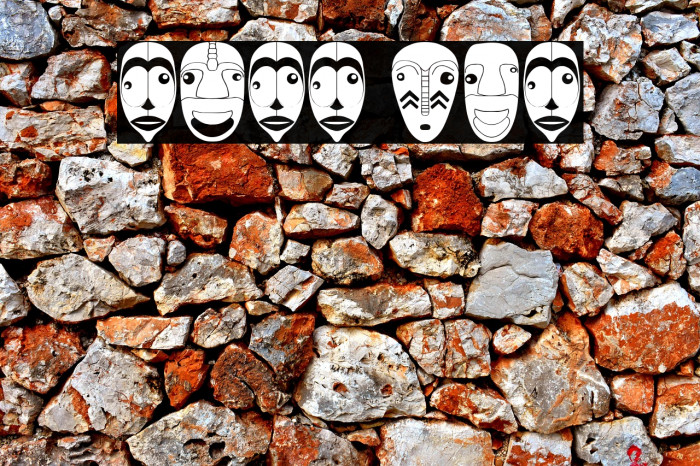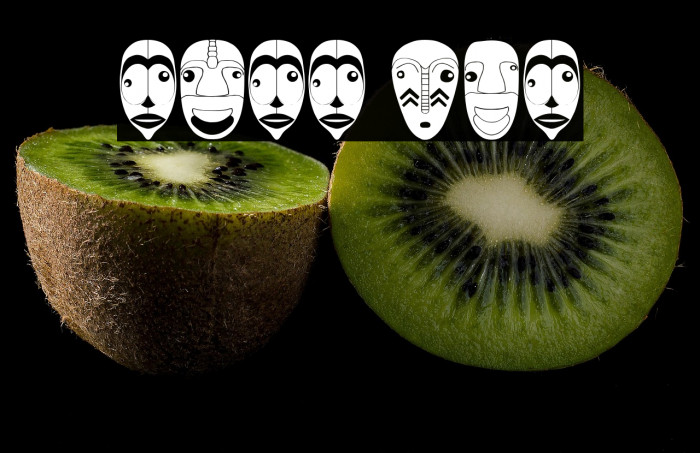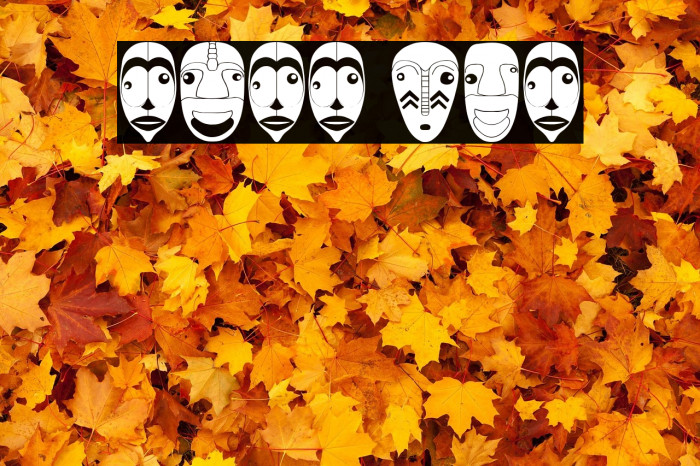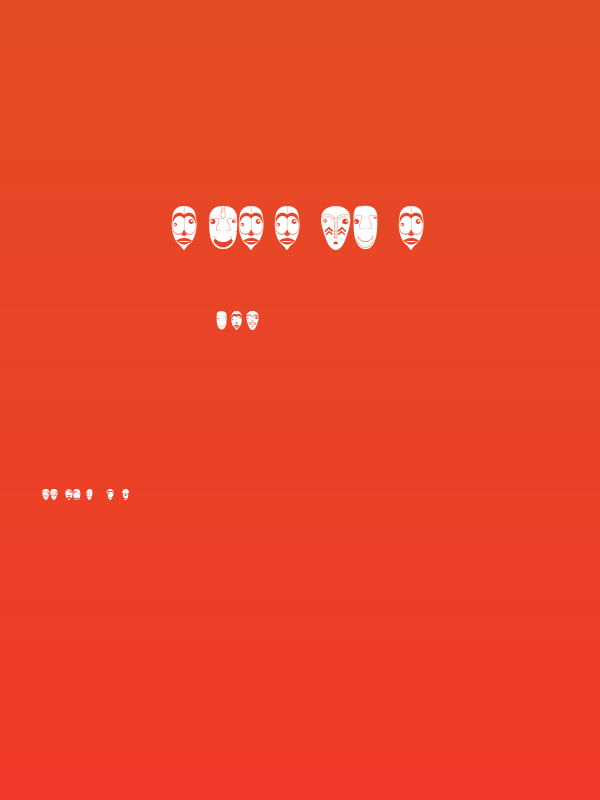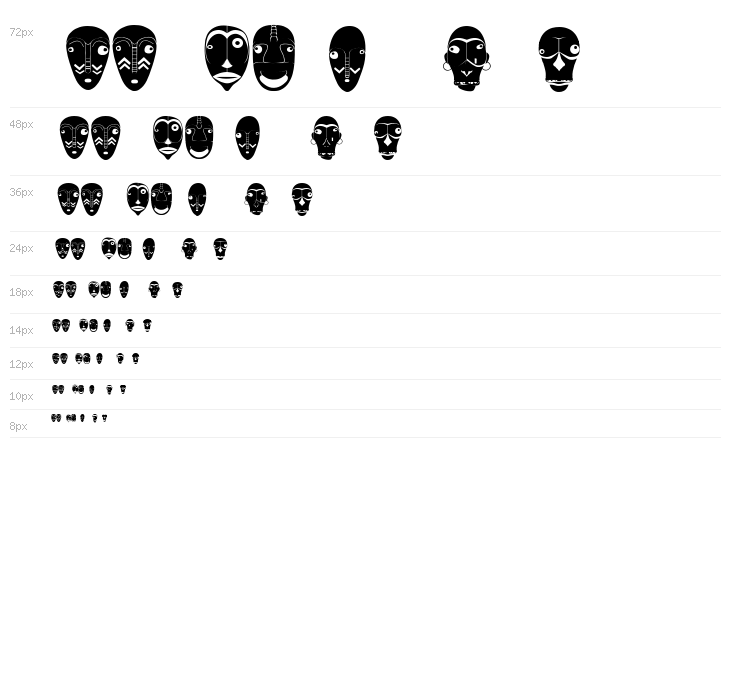
Mascara Regular Font
Mascara Regular Description
A highly decorative and playful font where each character is represented by a unique, stylized mask illustration, featuring bold black shapes with white accents and intricate facial details.
| Overall Style | Decorative, Playful, Artistic |
| Use Case | Logos, Posters, Headlines, Art projects |
| Proposed Projects | ChildrenΓ’β¬β’s books, posters, party invitations, art projects, branding for creative events. |